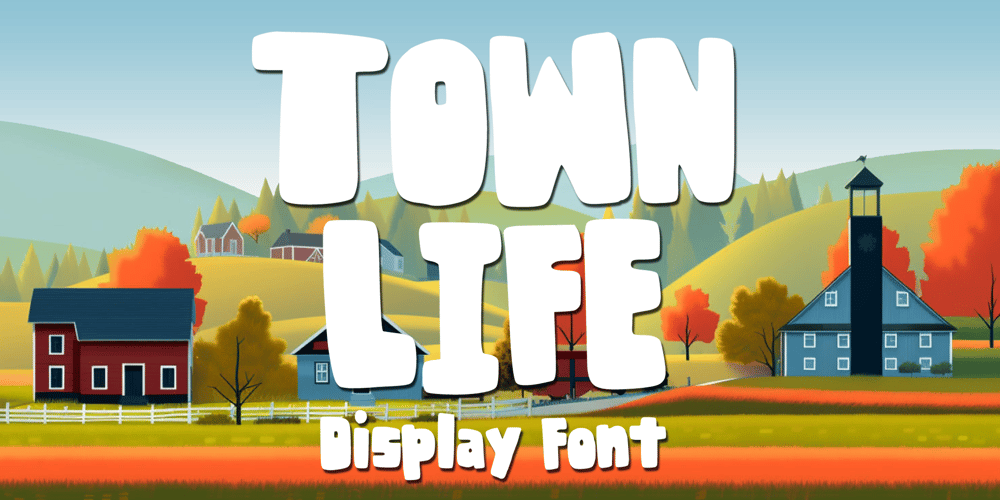
Town Life
Town Life font
Town Life Font Family was designed by Gabriel Valentinus and published by Mvmet. Town Life contains 1 styles and family package options. Town Life is a fun and playful bold display font. You can use it for anything ranging from daily typing need, blog writing, t-shirt designs, book designs, and greeting cards to stickers and posters, packaging designs, or anything that needs a casual touch, it will be your perfect font to pick. Fall in love with its incredibly versatile style, and use it to create lovely designs!